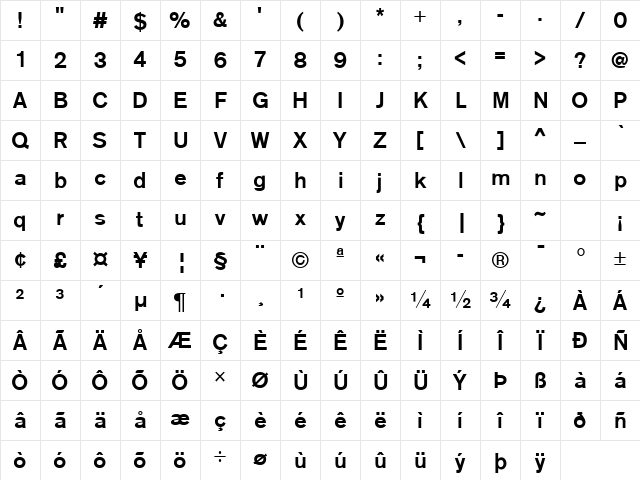
Complete Sage Medium Regular glyph index. Displaying only characters natively supported by Sage Medium Regular font.
Sage Medium is a composed and adaptable typeface that performs quietly and consistently across a wide range of design contexts.